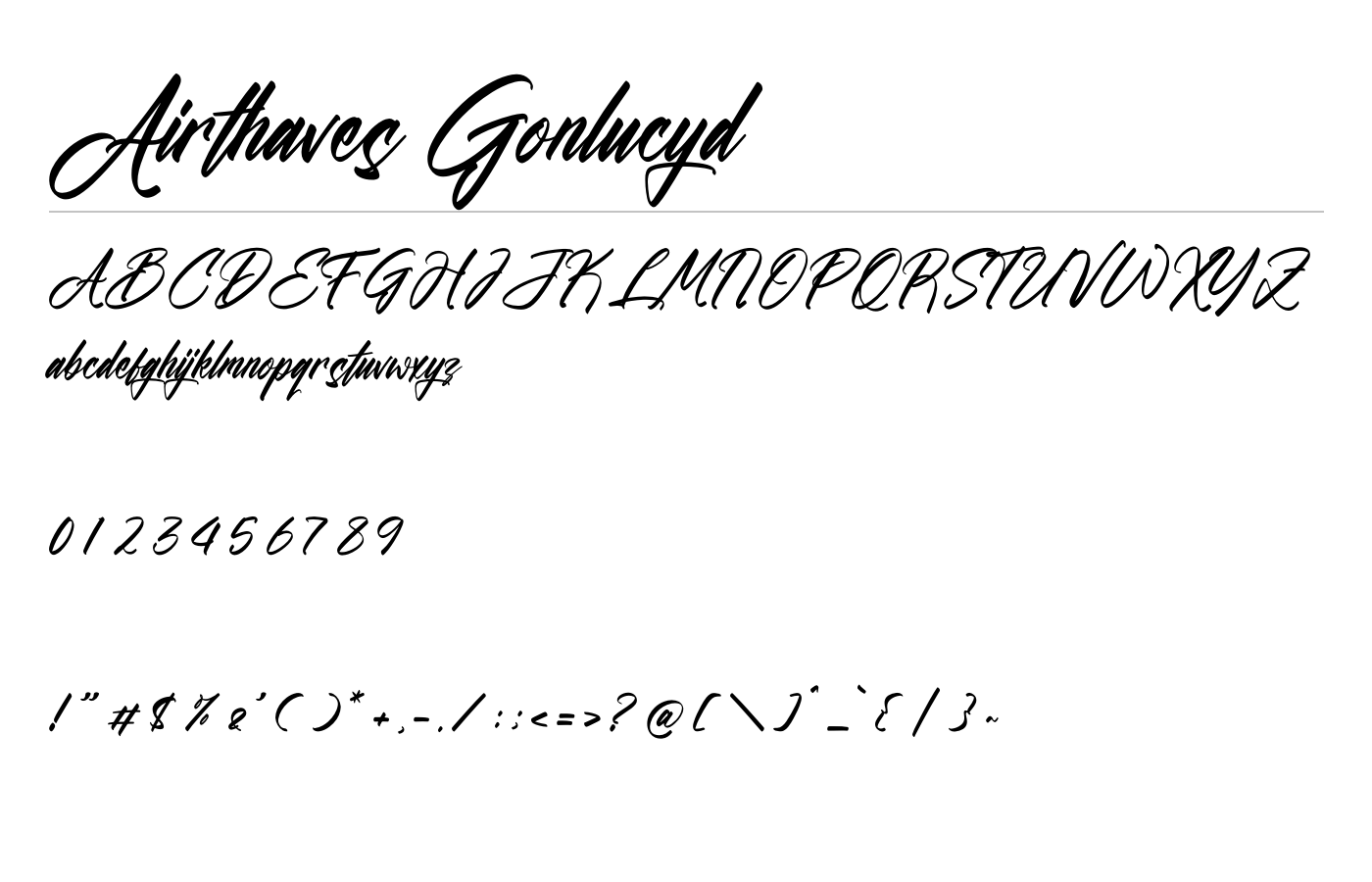
Airthaves Gonlucyd is a stylish script font with a handwritten feel, featuring elegant, flowing strokes and a bold weight that adds strong personality without sacrificing readability. Its high contrast and delicate curves make it perfect for sophisticated branding, invitations, and eye-catching headlines where a touch of charm and expressiveness is desired. This font works beautifully in creative designs that aim to combine modern flair with classic script elegance.
Airthaves Gonlucyd Font
About Airthaves Gonlucyd Font